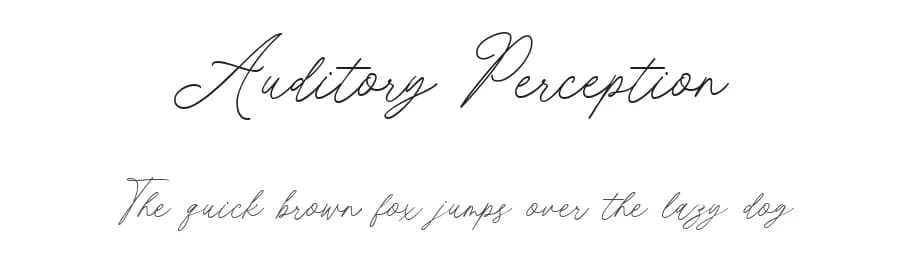
About Auditory Perception Font
Auditory Perception Specifications
| Font Family | Auditory Perception |
| Full Name | Auditory Perception Regular |
| PostScript Name | AuditoryPerception-Regular |
| Designer | Ali Hamidi |
Auditory Perception Font is a script font that shines as a display or heading face. Pair it with a clean sans-serif or serif font for body text β the contrast creates a clear hierarchy while the two styles stay balanced and easy to read.